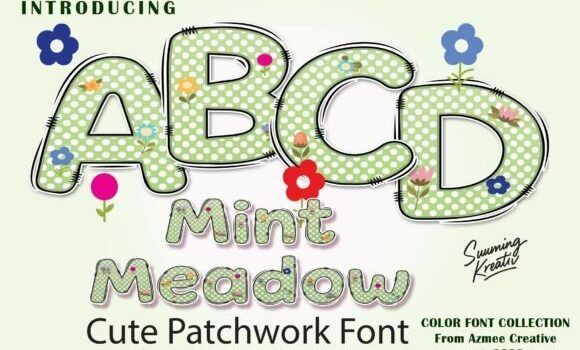
mintmeadow
Mintmeadow Font – Free Download Introduction to Mintmeadow Font Mint Meadow is a cute pastel patchwork color font featuring mint–green polka–dot letters decorated with flowers and stitched details. 📸 Preview Gallery 4 images 📌 Product Name Mintmeadow Font 👤 Author